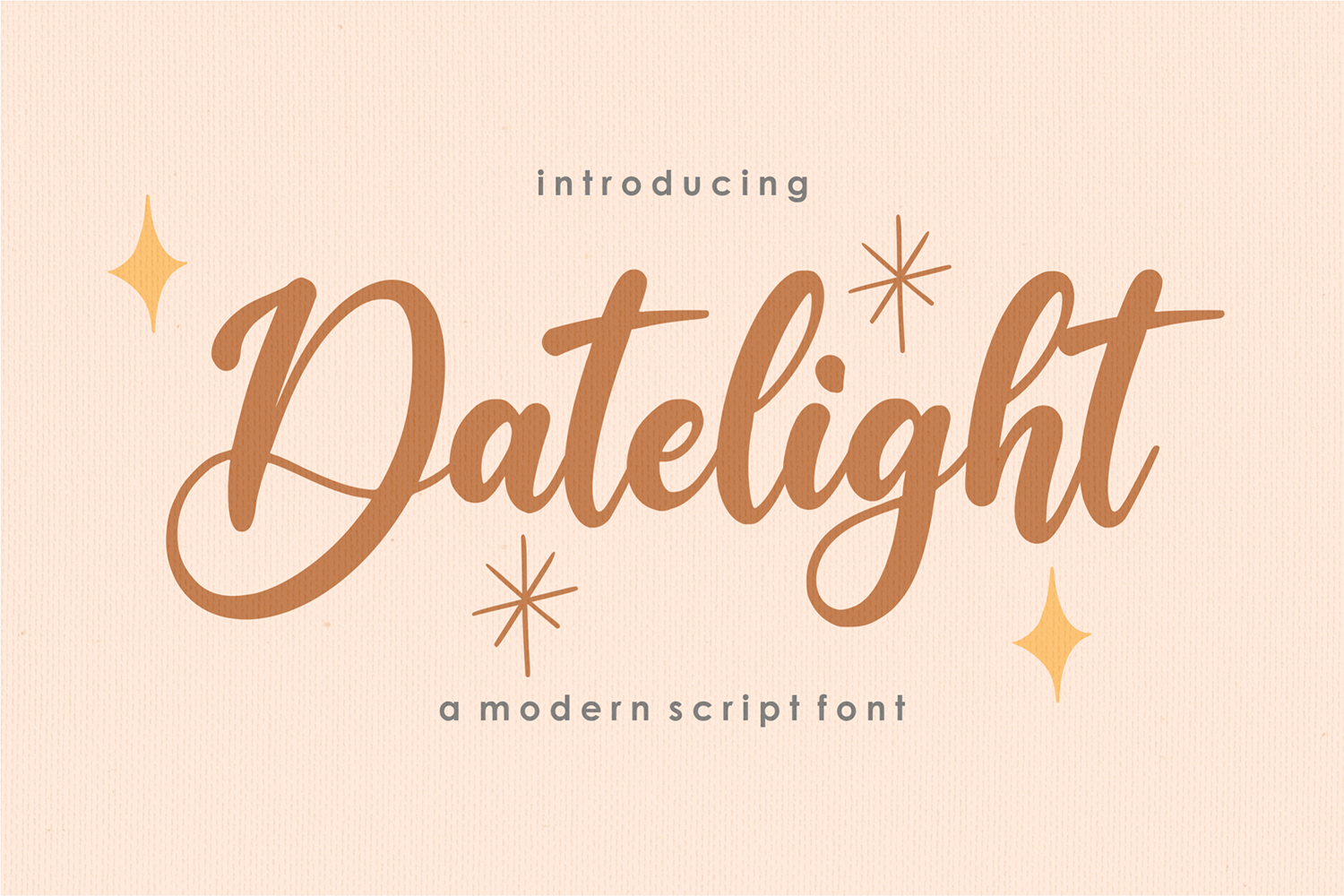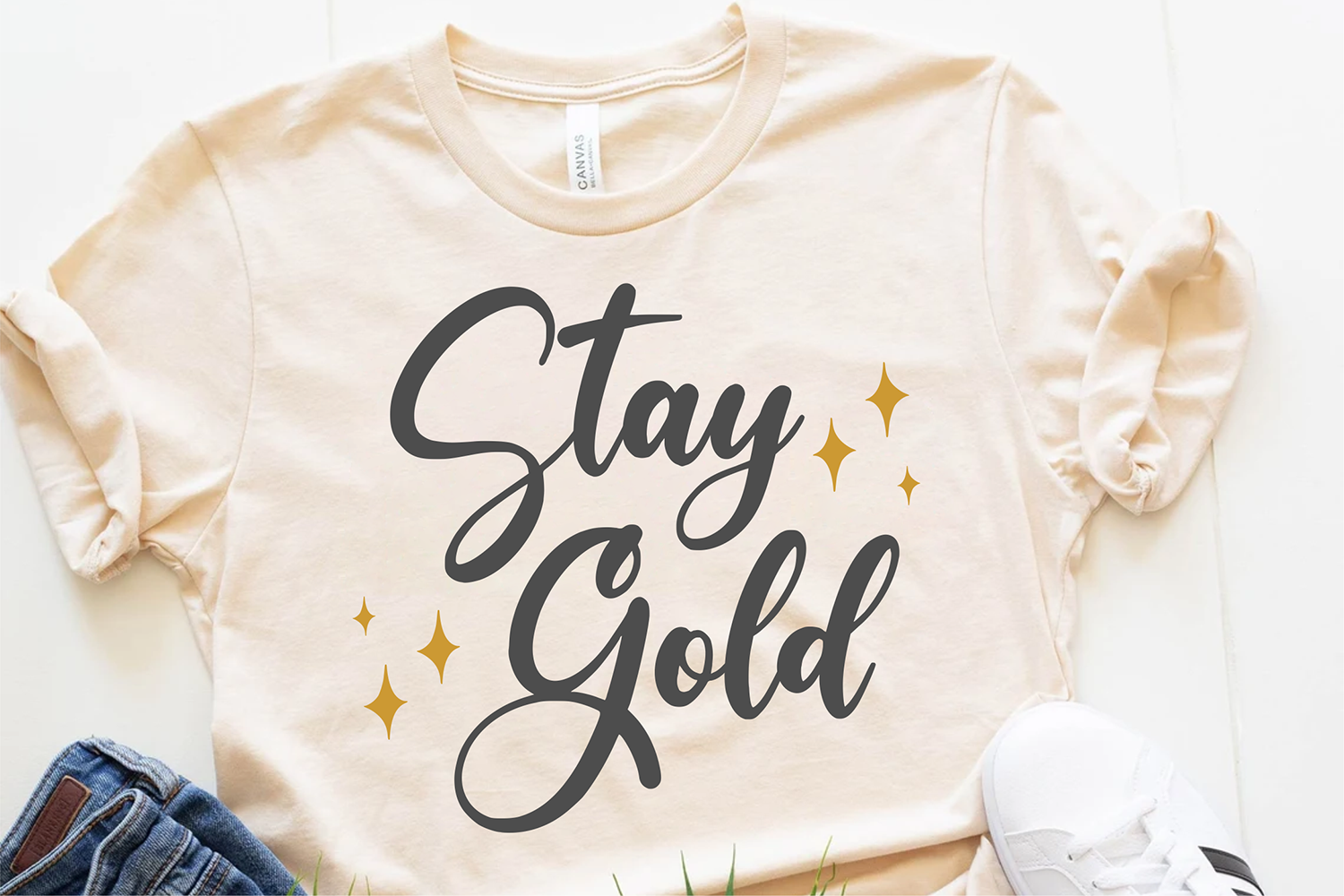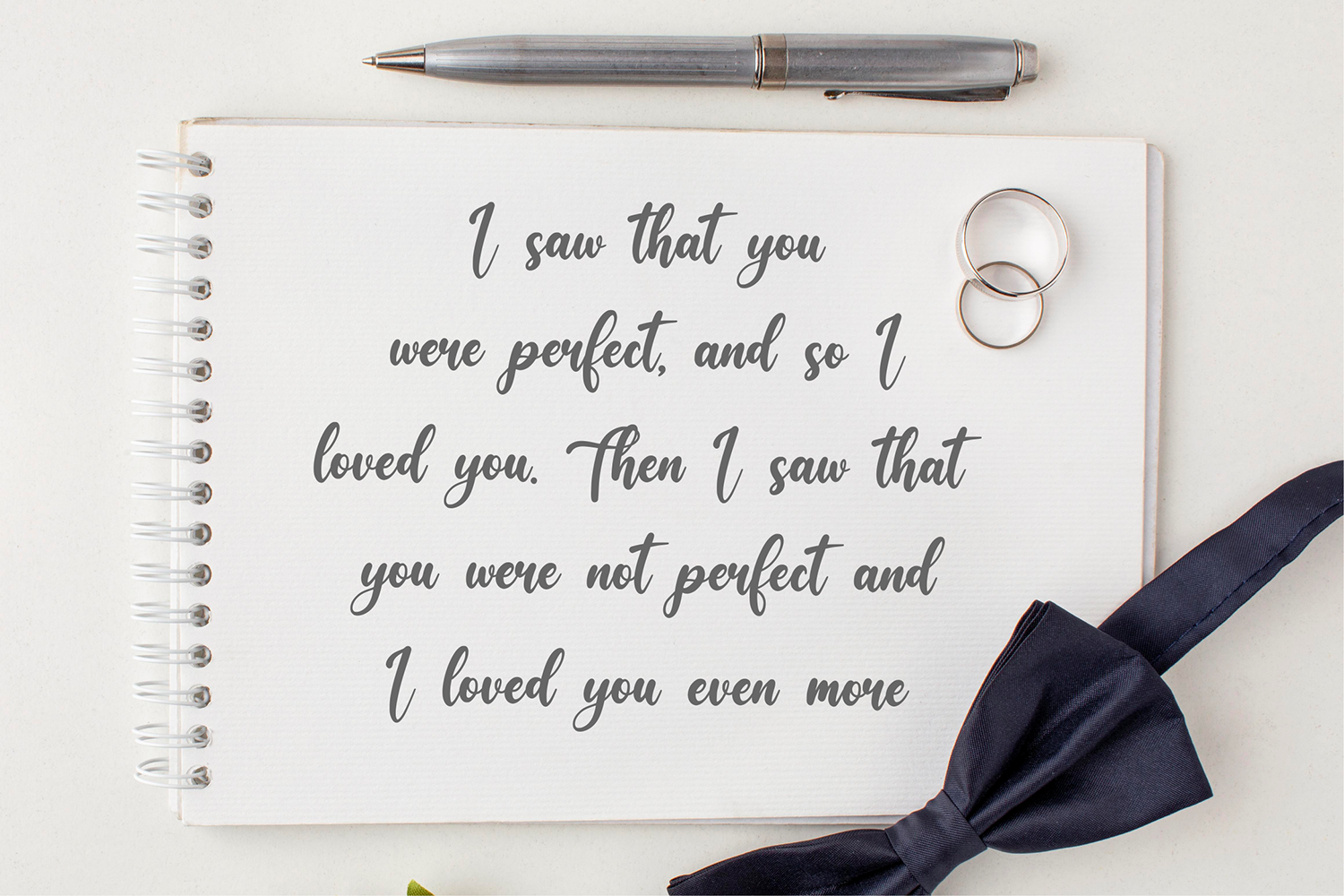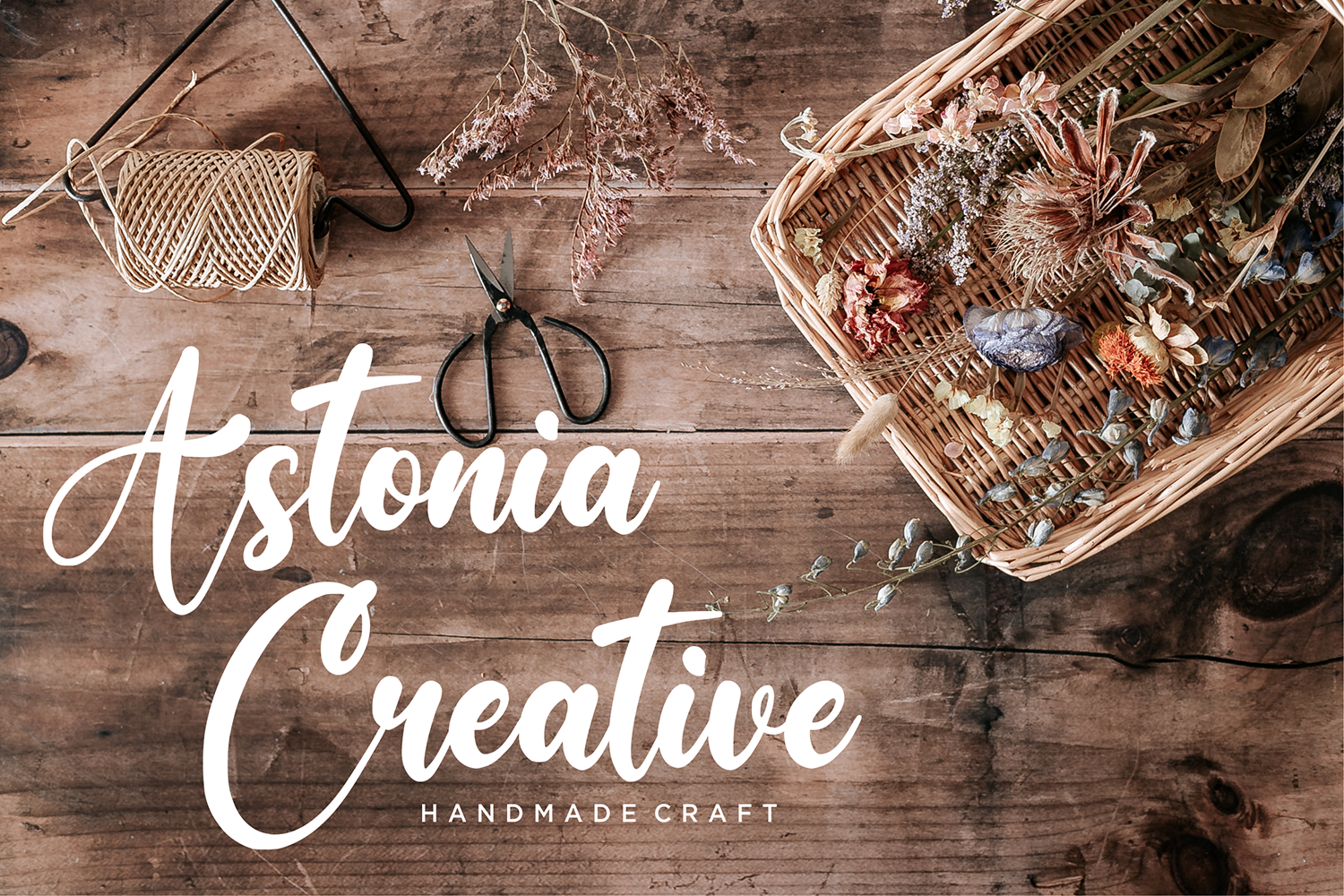
Datelight Free Font
Datelight Free Font is a modern handwritten font. Datelight is perfect for product packaging, branding project, megazine, social media, wedding, or just used to express words above the background. This free typeface was designed by a talented Qwrtype Foundry. If you like it don’t forget to check out the full version.